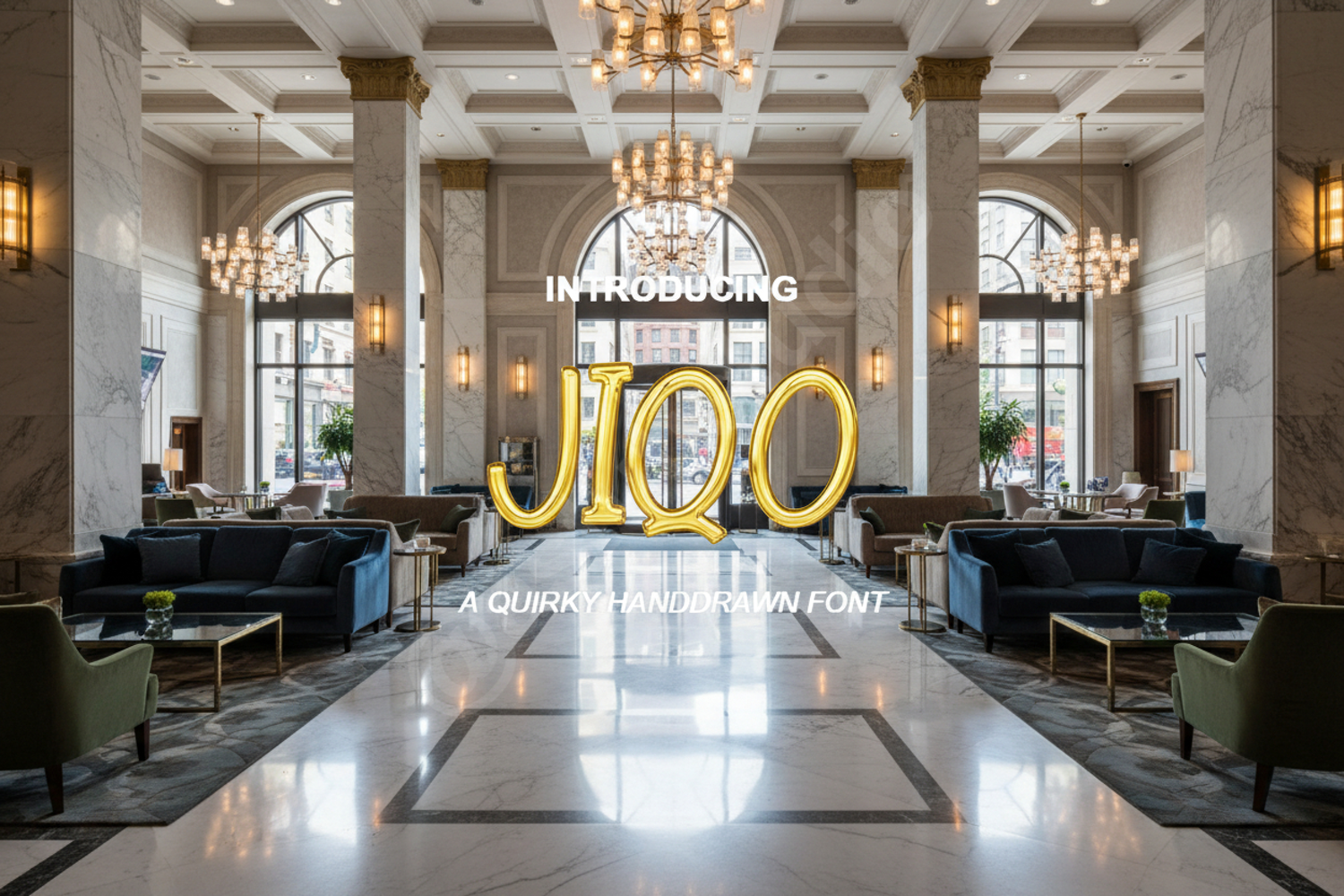
Jiqo - Modern Minimalist Sans Serif Typeface
Jiqo
Jiqo is a premium, high-quality sans serif font designed to bring a touch of modern sophistication to your creative projects. With its clean lines and balanced proportions, Jiqo offers exceptional legibility and a timeless aesthetic that suits both digital and print media perfectly.
- Full set of uppercase and lowercase letters
- Comprehensive numbers and punctuation
- Multilingual character support